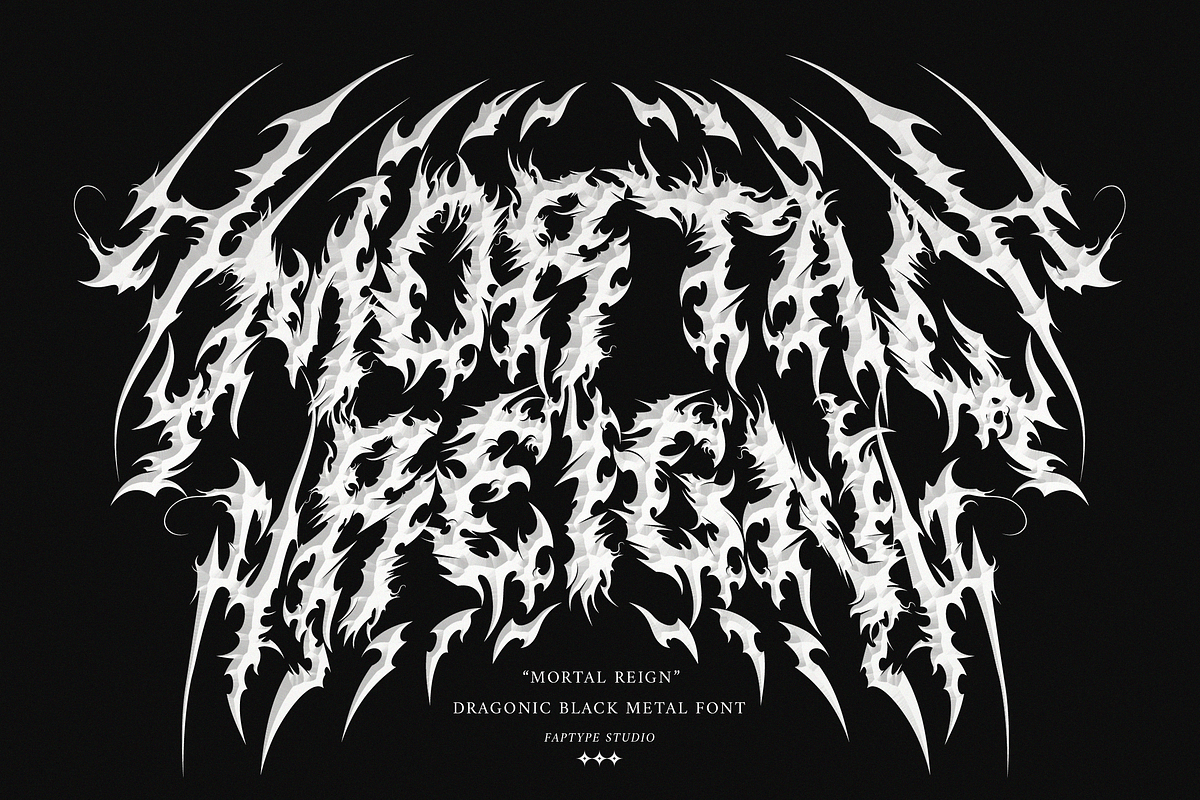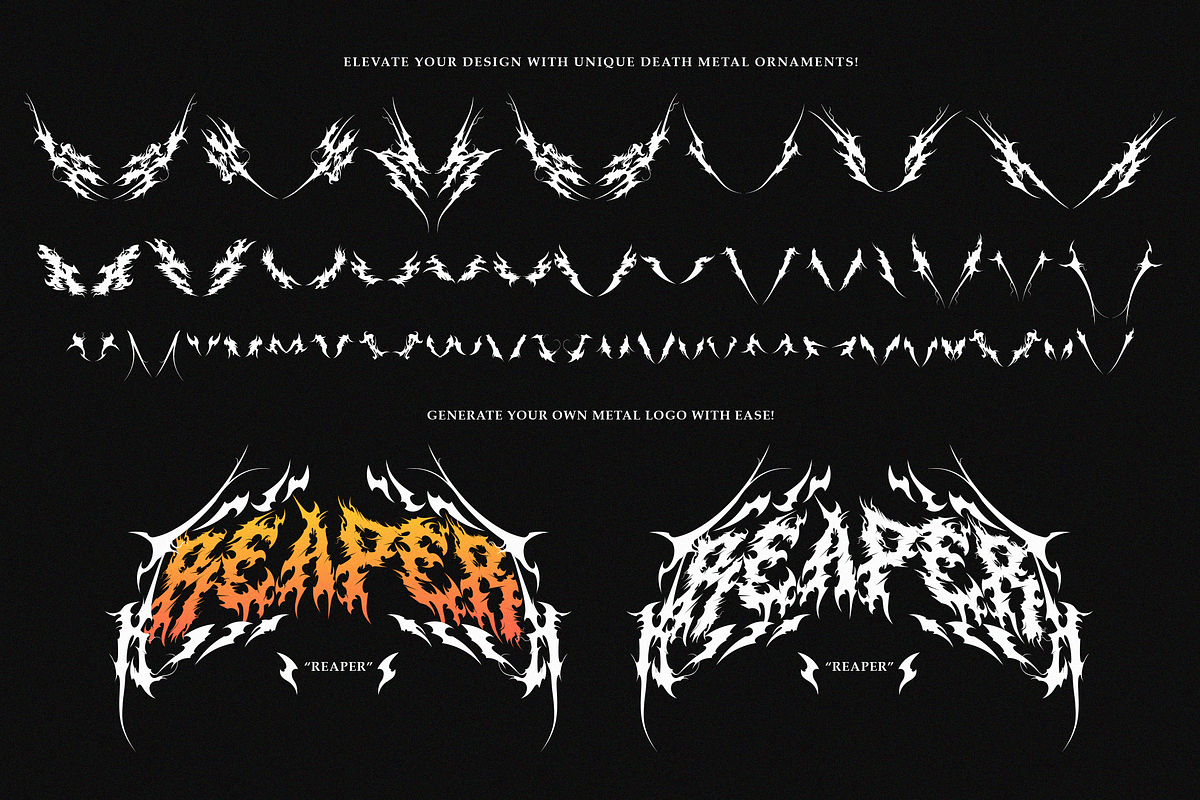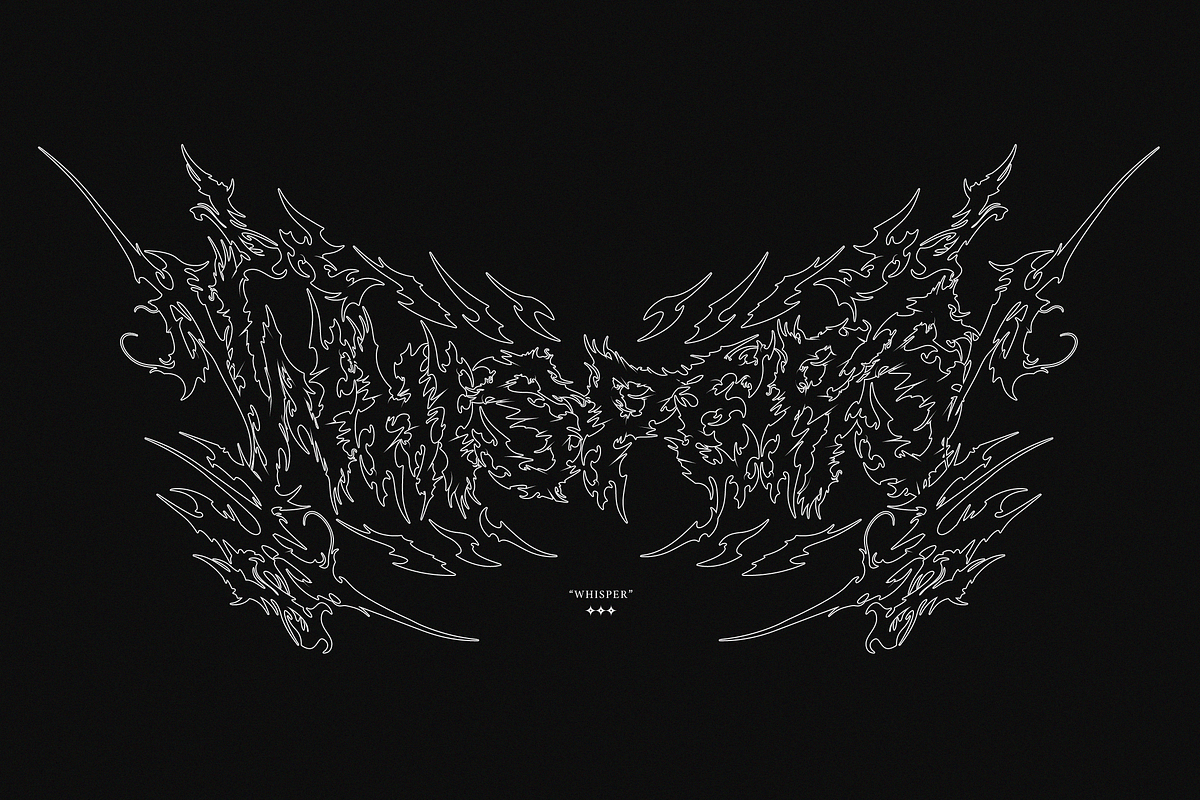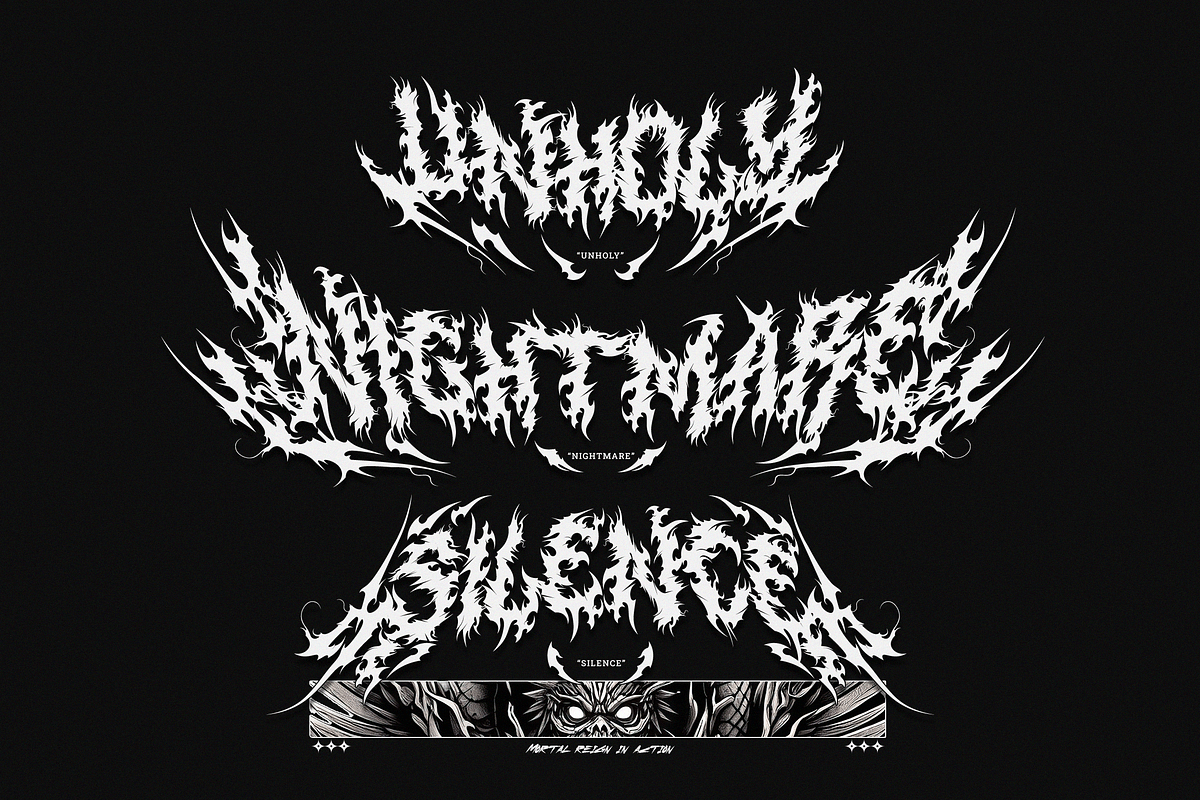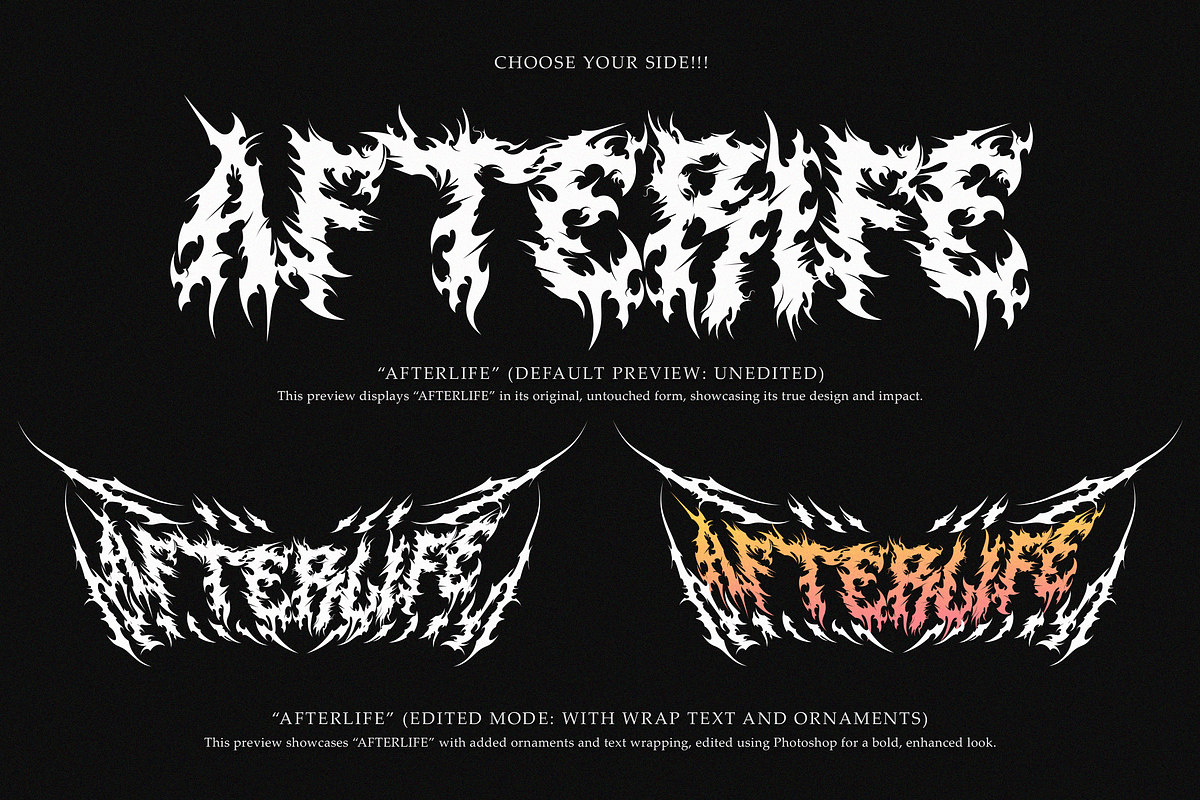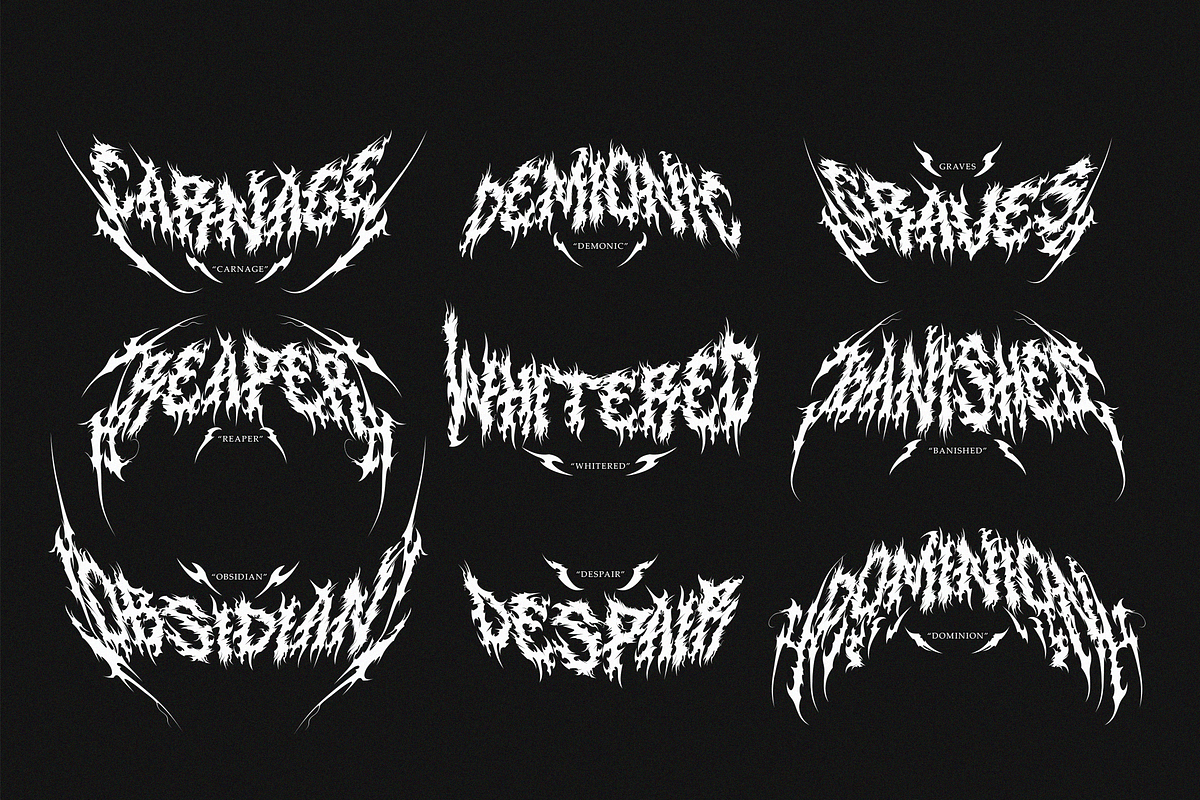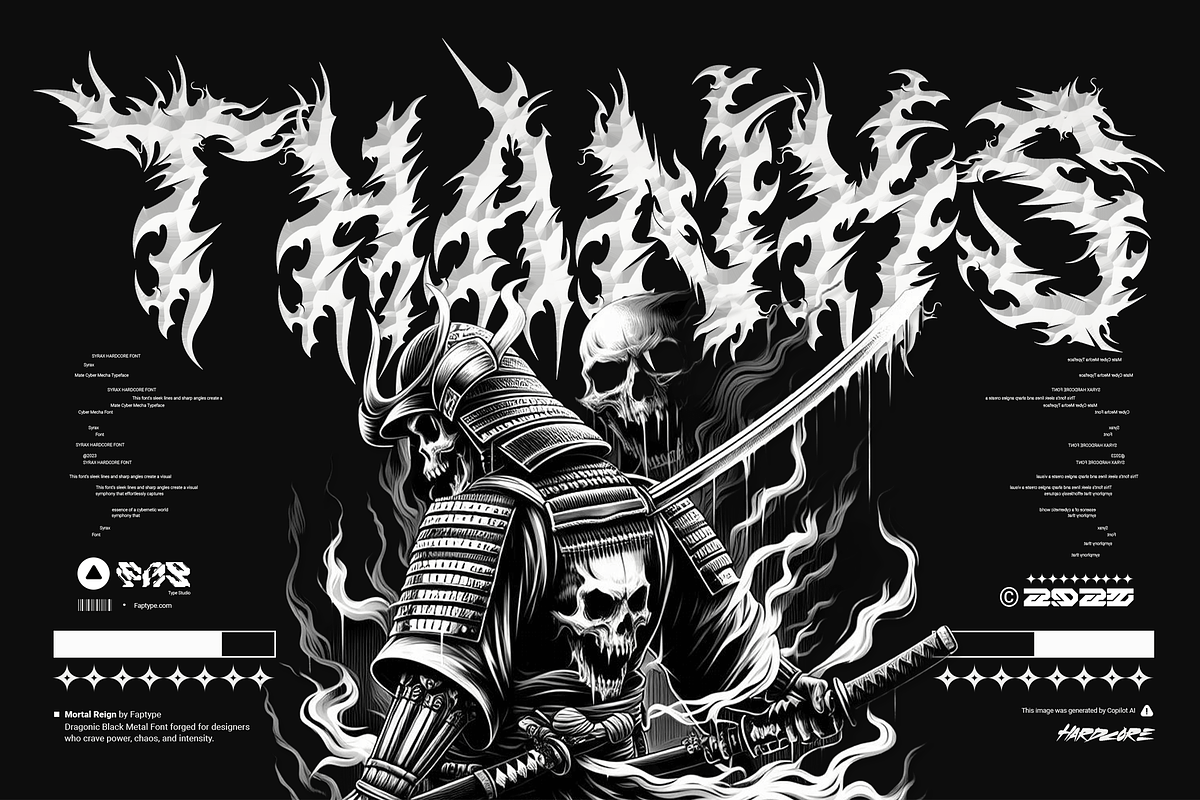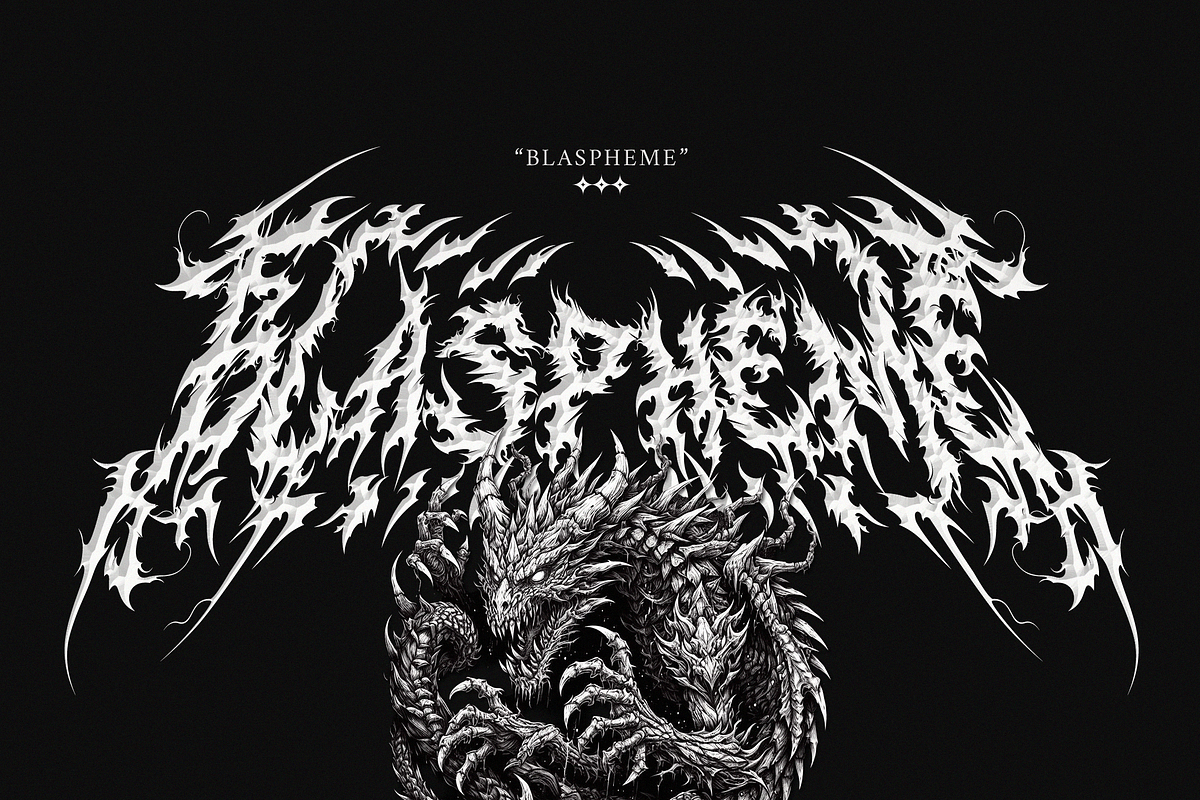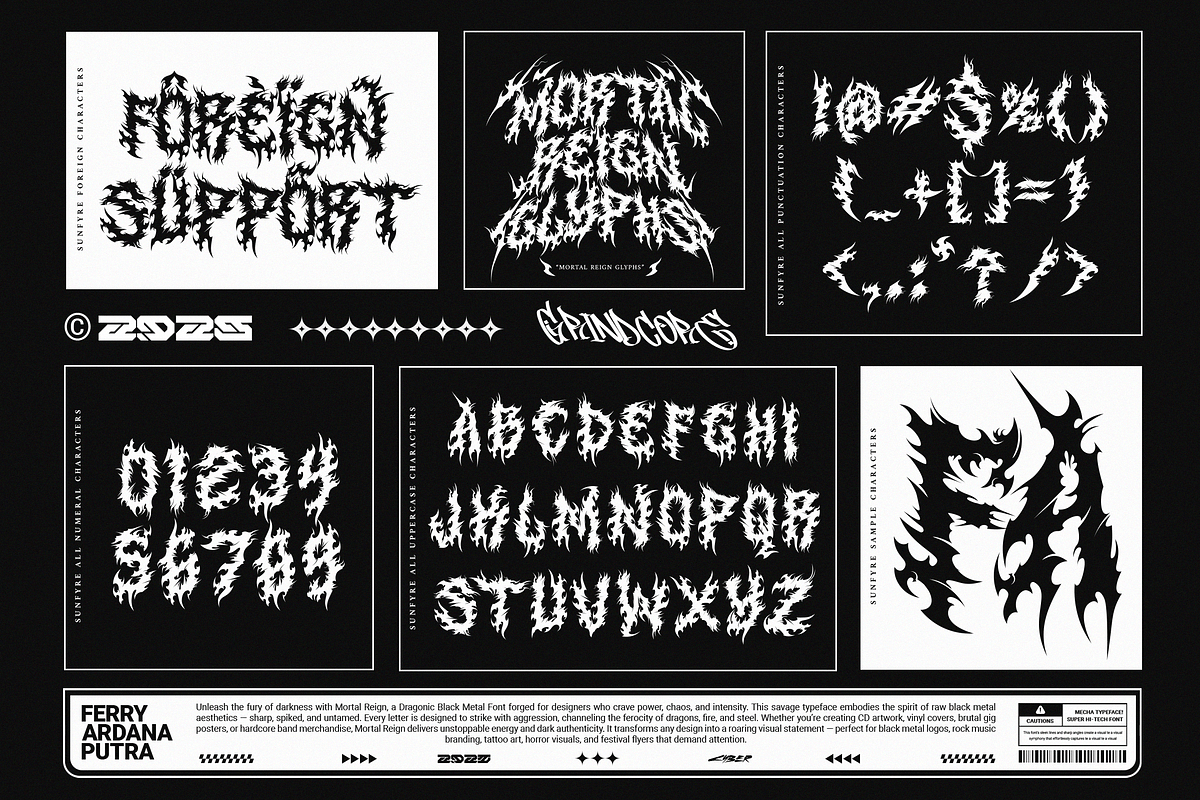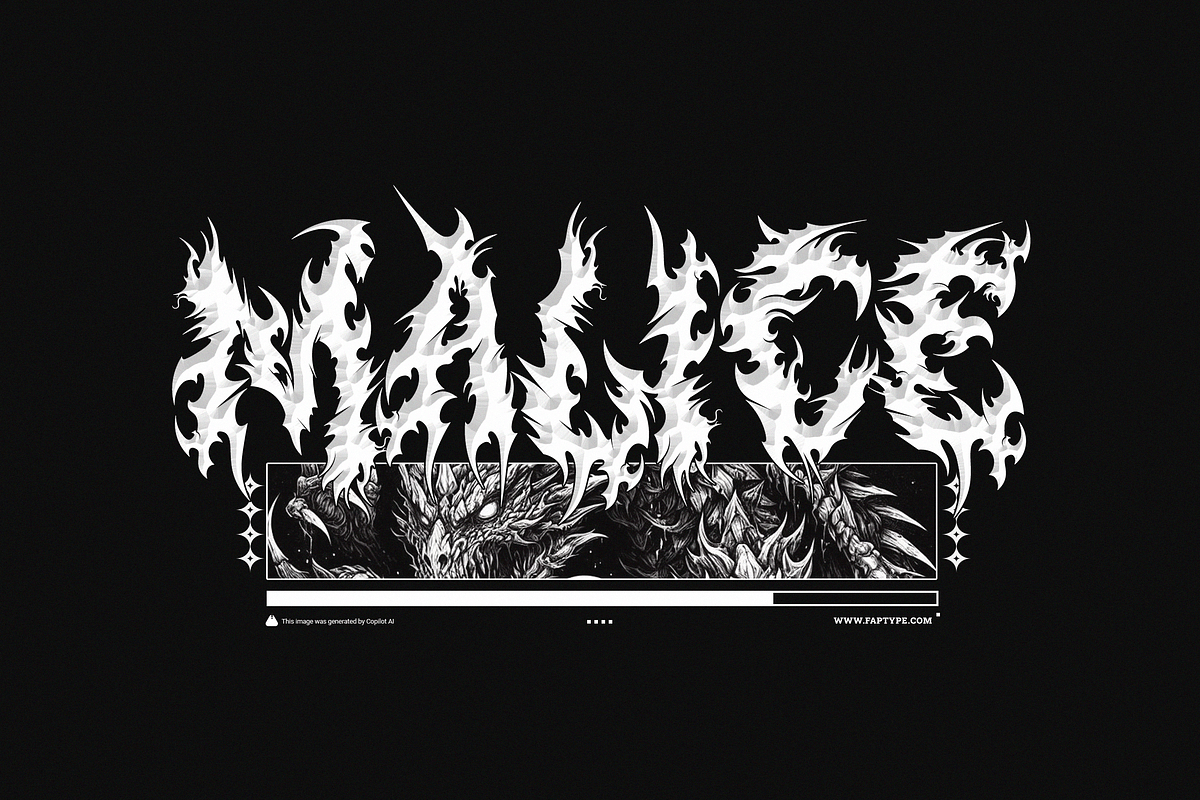
Mortal Reign | Dragonic Black Metal
Mortal Reign Black Metal Font – Dragonic Typeface for Extreme Designs
Unleash the fury of darkness with Mortal Reign Black Metal Font, a dragonic typeface forged for designers who crave power, chaos, and intensity. This savage display font embodies the spirit of raw black metal aesthetics — sharp, spiked, and untamed. Every letter strikes with aggression, channeling the ferocity of dragons, fire, and steel.
Whether you’re creating CD artwork, vinyl covers, brutal gig posters, or hardcore band merchandise, Mortal Reign delivers unstoppable energy and dark authenticity. It transforms any design into a roaring visual statement — perfect for black metal logos, rock music branding, tattoo art, horror visuals, and festival flyers that demand attention.
Mortal Reign captures the essence of underground rebellion. With its chaotic yet structured design, it balances brutality and readability, making it ideal for both display and logo work. Every stroke breathes life into your artwork, turning text into pure visual aggression.
This font isn’t just a typeface — it’s a declaration of dominance in the extreme design world. From death metal to dark fantasy, Mortal Reign Black Metal Font fits projects that need a fearsome and unforgettable visual impact.
Mortal Reign Features
Full set of Uppercase
Numbers and Punctuation
Multilingual Language Support
PUA Encoded Characters
OpenType Features
+372 Total Glyphs
+141 Death Metal Ornaments included